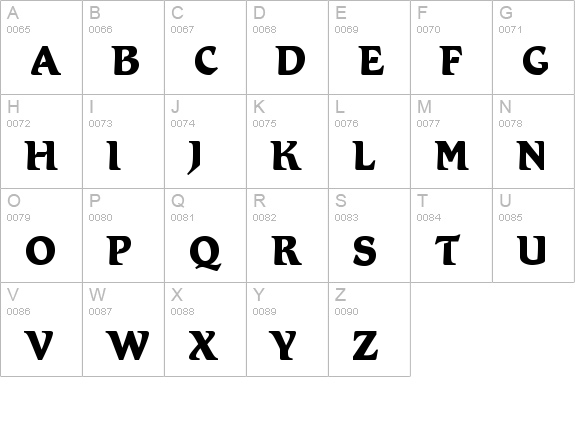
Romic Std Extra Bold is a strong, high-contrast variant in the Romic typeface family \xE2\x80\x94 well suited to headlines, attention-grabbing titles, and strong calls-to-action.
Romic Std Extra Bold font is a striking and impactful typeface that exudes strength and confidence. Its bold and robust design makes it perfect for headlines, titles, and other display purposes where you want to make a statement. With its clean lines and modern aesthetic, Romic Std Extra Bold commands attention and adds a touch of sophistication to any design project. What's even better is that Romic Std Extra Bold font is available for free download at FontsMarket.com. This means you can easily access this stunning typeface and use it in your projects without any cost. Whether you're working on branding, posters, or any other design project, Romic Std Extra Bold is sure to make a bold statement and elevate your work to the next level. Download it now and see the impact it can make on your designs!